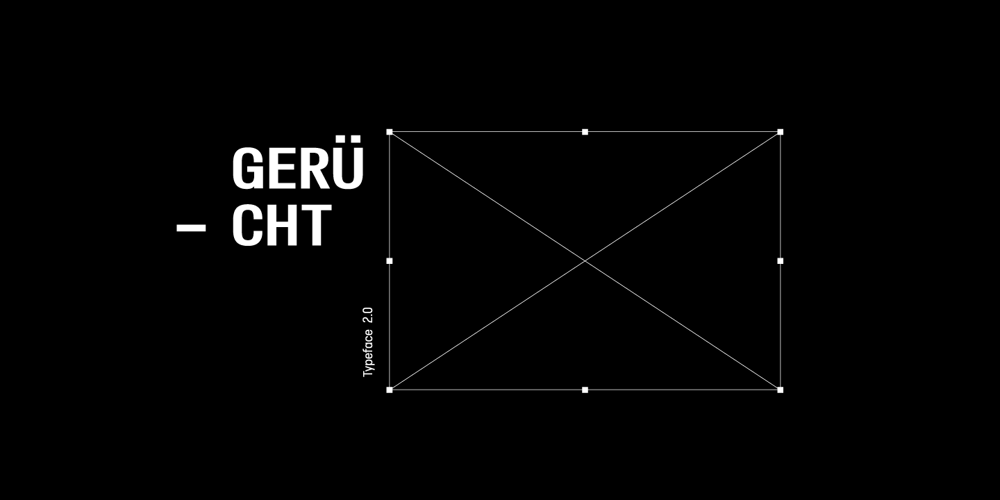
Gerucht 2.0 Font Family was designed by Gabriele Bellanca and published by Rumors Foundry. Gerucht 2.0 contains 6 styles and family package options. Gerücht Typeface is a family of digital fonts designed in 2019 by Gabriele Bellanca for Rumors Foundry in three different weights and their corresponding slanted versions. All rights reserved.Gerücht (in English rumor) is the name of the font-family: today the name of a font is part of the graphic design itself, unlike in the past, where it usually consisted of a simple retrospective description (such as in the case of Gothic Condensed No.2) of its characteristics. It’s a “one-word advertising slogan”, writes Tobias Frere-Jones, which serves to build an idea and a charm to associate with that type of character.